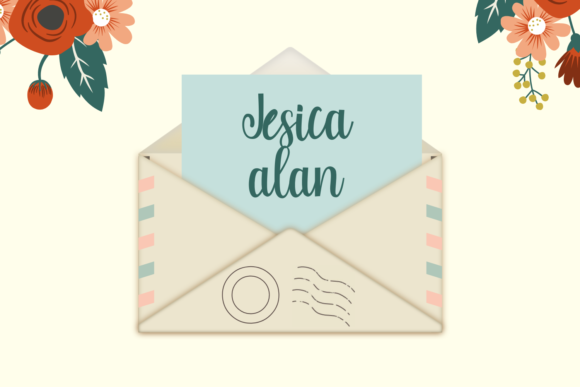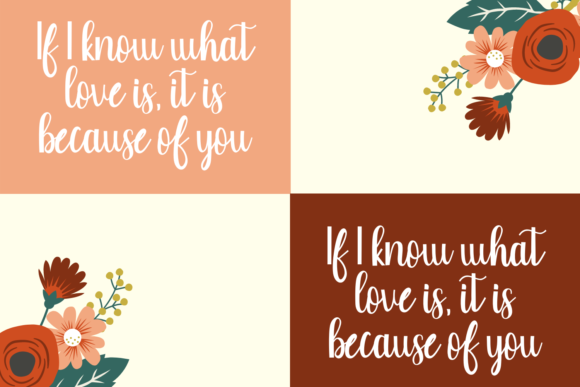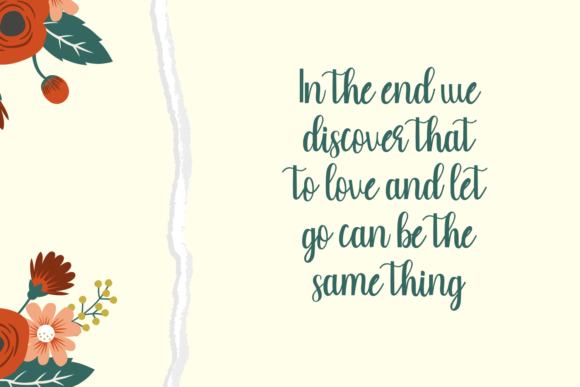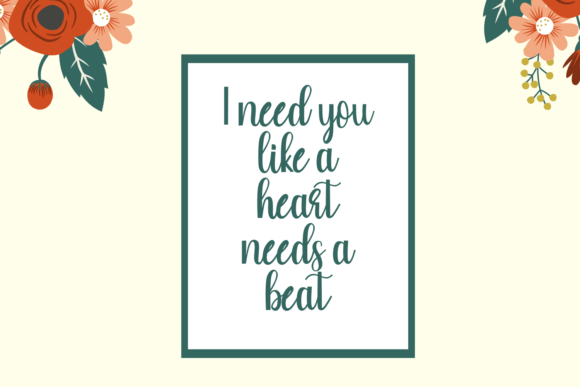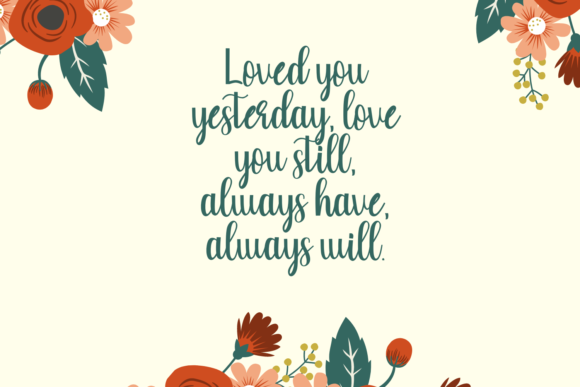
Introduction to Mailynda Font
Mailynda is a classy handwritten font that has a beautiful curvy shape.
Stylish and incredibly elegant, this font is the best choice when it comes to wedding invitations, greeting cards, birthday cards, name tags, and so much more .
Mailynda Font offers exceptional quality and versatility, making it a valuable addition to your design toolkit. Whether you’re creating for personal projects or commercial use, Mailynda Font delivers professional results.